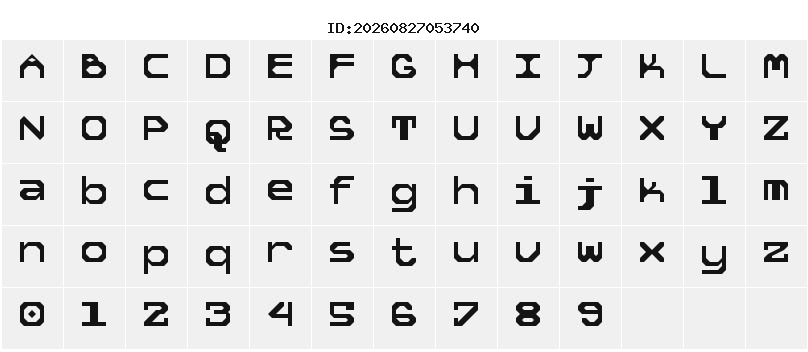
• Font Name: 5Tekknosystem
• Designer: Noah - 10 year old typomaniac
• Description: ‚Äú5Tekknosystem‚Äù was built with FontStruct
About 5Tekknosystem.ttf
5Tekknosystem.ttf is a modern, elegant sans-serif font designed for ultimate readability and visual harmony. Perfect for branding, headlines, web design, and print materials.